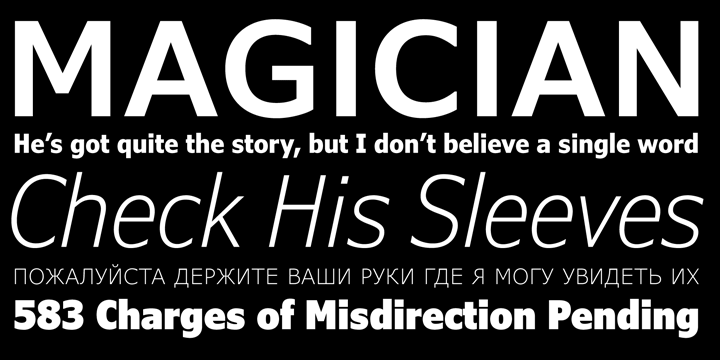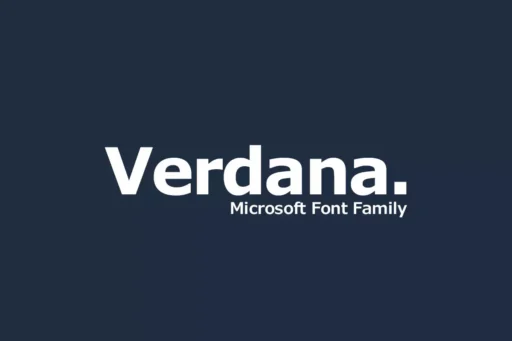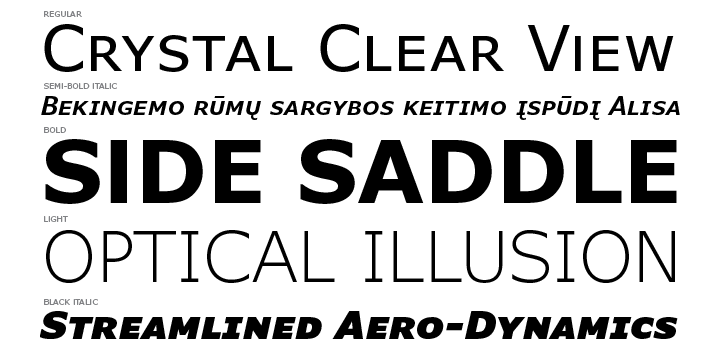
Verdana Font
Verdana is an example of a humanist sans serif font family that has been developed with a focus on web compatibility. Created by Matthew Carter for Microsoft, it gained popularity for clean, unobstructed shapes and large letters’ kerning. Although it might be hard to imagine today, Verdana was a major innovation in type design that was specifically created for the constraints of early computer screens.
It was in the mid-1990s, when the graphical user interfaces and the internet became popular, there was a requirement for fonts that exhibited good legibility on the lower resolutions screens. Microsoft’s typography team, led by Virginia Howlett, was looking for a solution to this problem. Matthew Carter, a type designer of high repute, was responsible for the design and development of the typeface, and Thomas Rickner from Monotype provided his valuable input by hand, hinting at the better display of text on the screen.
Created in 1996 at the same time with Microsoft Internet Explorer 3, Verdana became very popular in the world of the Web. Of course, the clean, readable font used in the design was a welcome change from the spiky, low-resolution fonts that defined so many early websites. This made Verdana a standard system font for Windows operating systems, therefore increasing its usage in digital text.
One of the characteristics of Verdana is that it has a large x-height. This means the capital height of x, a, o and such like; by making these letters taller than the ascenders, like the stem of b or d and the descenders, like the tail of p or q, Verdana enhances the legibility. At such sizes, it is possible to distinguish individual letters, and they do not merge into one large
word or a chain of words.
Verdana is more open in terms of the spacing between characters. This relatively large letter spacing, especially in the lowercase, helps to alleviate the issue of letters ‘fusing’ on the lower-density screens. There is good white space around each character, which is beneficial for the reader as the text does not strain the eyes when reading for extended periods of time.
The counters or the holes inside letters such as ‘o’ or ‘p’ and apertures or the semi-openings such as the top of ‘c’ or ‘e’ in Verdana are large and unobstructed. This intentional design decision helps to maintain the legibility of the letterforms and avoids the characters bleeding together, which can be particularly problematic when displayed on screens where pixels can create a blurred effect.
Verdana makes a special effort to distinguish between similar characters that might be easily mistaken. For example, the lower case ‘i’ and ‘l’ have different serifs at their bottoms to prevent confusion, as do the upper case ‘I’ and the numeral ‘1. The changes are minute, but they assist in reducing possible sources of confusion that could affect legibility.
The Verdana font is particularly striking and is much more pronounced than the standard font one would use in print. This bolder weight of the text makes the text more legible and easily readable, even on screens that are not very high quality or are relatively old, where the contrast could be a problem. It also gives a clear contrast in the design and does not affect the readability of the text.
When the internet first started to come into existence, Verdana was the font that many web designers loved. It became popular as it provided clear and readable text to different screen sizes, therefore being ideal for websites. Whether it was the headlines, the body text, the menu bar, or the small print, Verdana always made it easy to read and understand information no matter the device being used. Web design has changed over time, yet Verdana continues to be a safe choice, especially when readability is a major concern.
Due to its high legibility, Verdana was ideal for use in user interfaces. Microsoft incorporated Verdana into its Windows operating systems and used it for menus, dialogue boxes, and other on-screen features. This helped users differentiate between various components of the software applications and did not strain their eyes, thus improving the overall user experience.
Verdan became popular not only for website and UI design but remained an essential font for numerous digital documents. From emails and online articles to e-books and business presentations, its clean and easily readable letterforms and generous spacing made it ideal for text. In the context of digital publishing, Verdana played its part in making sure that people could enjoy reading without having to squint their eyes to make out the text on the screen.
In the Humanist sans-serifs, Verdana is in good company with many other typefaces that are also committed to the principles of legibility. Some of the most popular fonts include Frutiger, which is a design classic, and Trebuchet MS, which is a more playful Microsoft font. The closest font in the Microsoft font family to Tahoma is Calibri, although the latter is slightly wider in form. Expanding the search outside the realm of Microsoft, one can find other fonts such as Open Sans, Roboto, Segoe UI and even the ever-so-popular Arial, which are equally suitable for those who want to find similar fonts to Verdana.